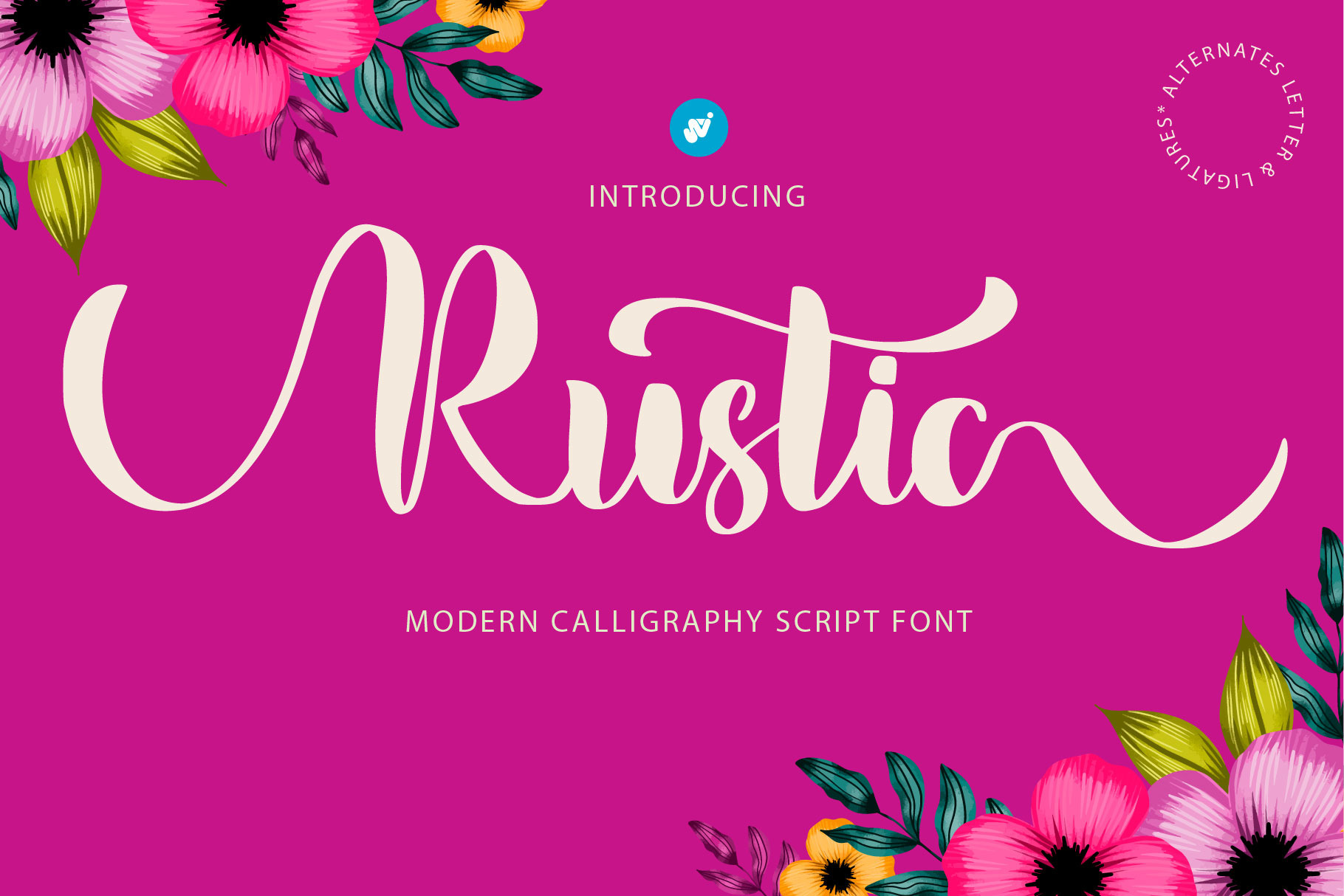
Rustic Wedding font
introducing Rustic modern script typeface, using style hand made with brushing. Rustic a beautiful for wedding card design, logotype, website header, fashion design and any more.
Features : • Character Set A-Z • Numerals & Punctuations (OpenType Standard) • Swash • Stylistic Alternates • Standard Ligatures